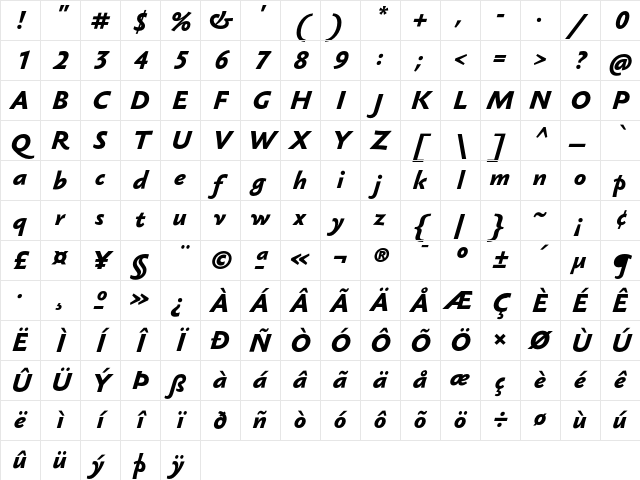
Sebastian Medium Pro Bold Italic
Foundry: Frantisek Storm, www.stormtype.com
Designer: Frantisek Storm
Design Context for Sebastian Medium Pro
Sebastian Medium Pro is a composed and adaptable typeface that performs quietly and consistently across a wide range of design contexts. The slanted form adds forward momentum and visual energy. Its bold stroke weight gives it real presence on the page.
Pro Tip: Use Sebastian Medium Pro for emphasis, pull quotes, and subheadings where its slanted energy can add rhythm to the layout.
Who designed the Sebastian Medium Pro Bold Italic font?